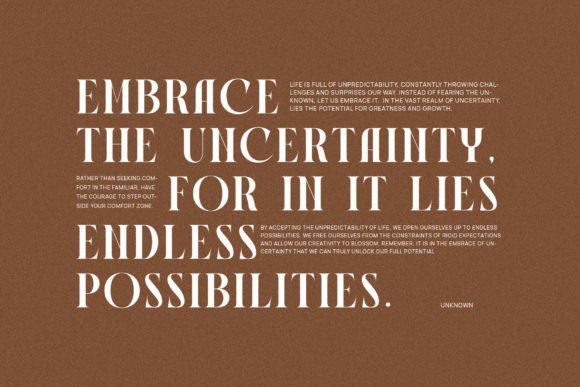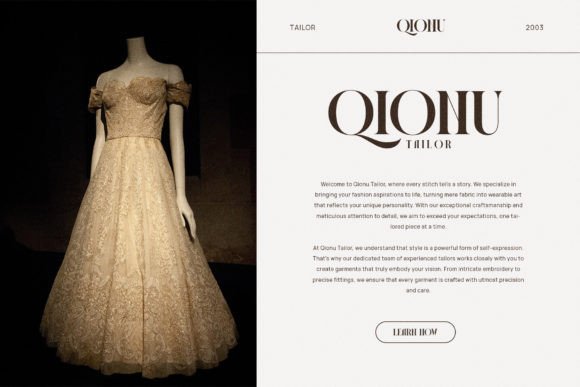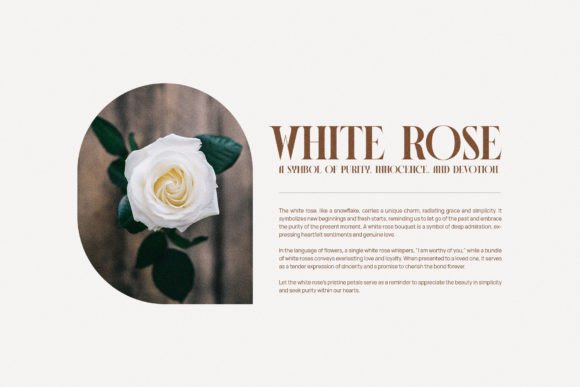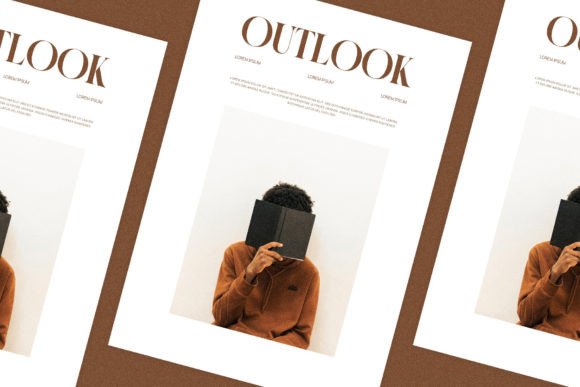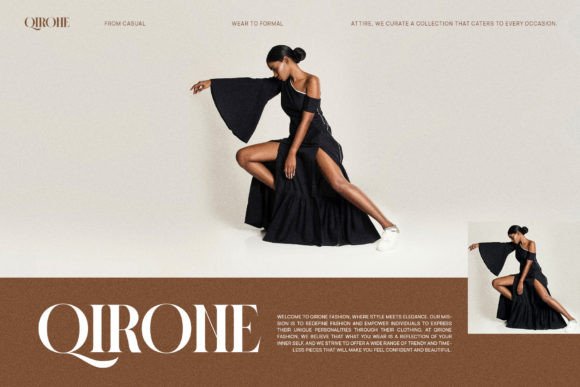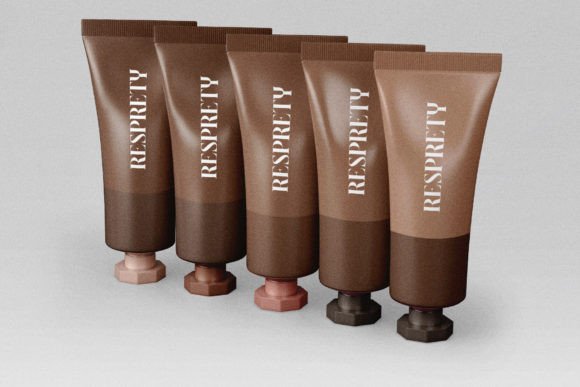
Introduction to Jisoya Font
Jisoya is an elegant serif typeface combined with a classy and modern style.
This type of font is very suitable for your various needs such as branding projects, logos, wedding designs, social media posts, advertisements, product packaging, product designs, labels, photography, watermarks, invitations, stationery, and any project, created with high level of readability .